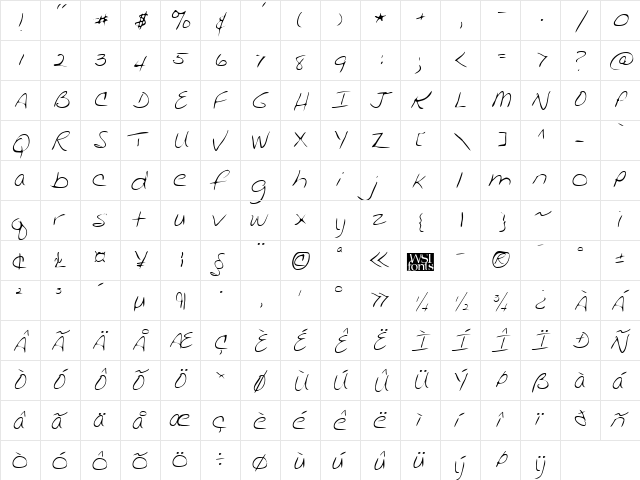
JackiesHand Regular
Design Context for JackiesHand Typeface
JackiesHand flows with the natural rhythm of handwritten lettering, making it ideal for designs that call for warmth and personal expression.
Font Pairing: Combine JackiesHand with a simple geometric sans for maximum contrast — the tension between flowing curves and clean structure is a classic typographic pairing.
Pro Tip: Pair JackiesHand with a clean sans-serif for supporting text. The contrast between fluid script and geometric structure creates an elegant typographic hierarchy.